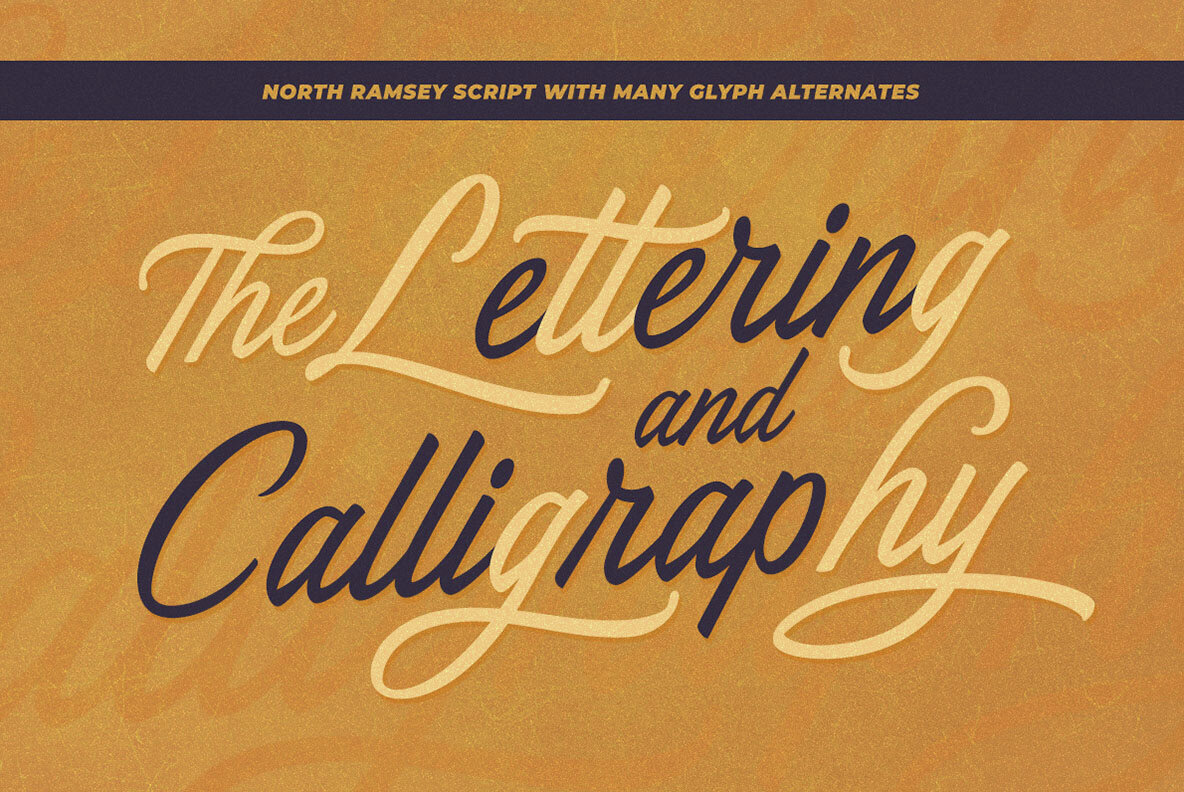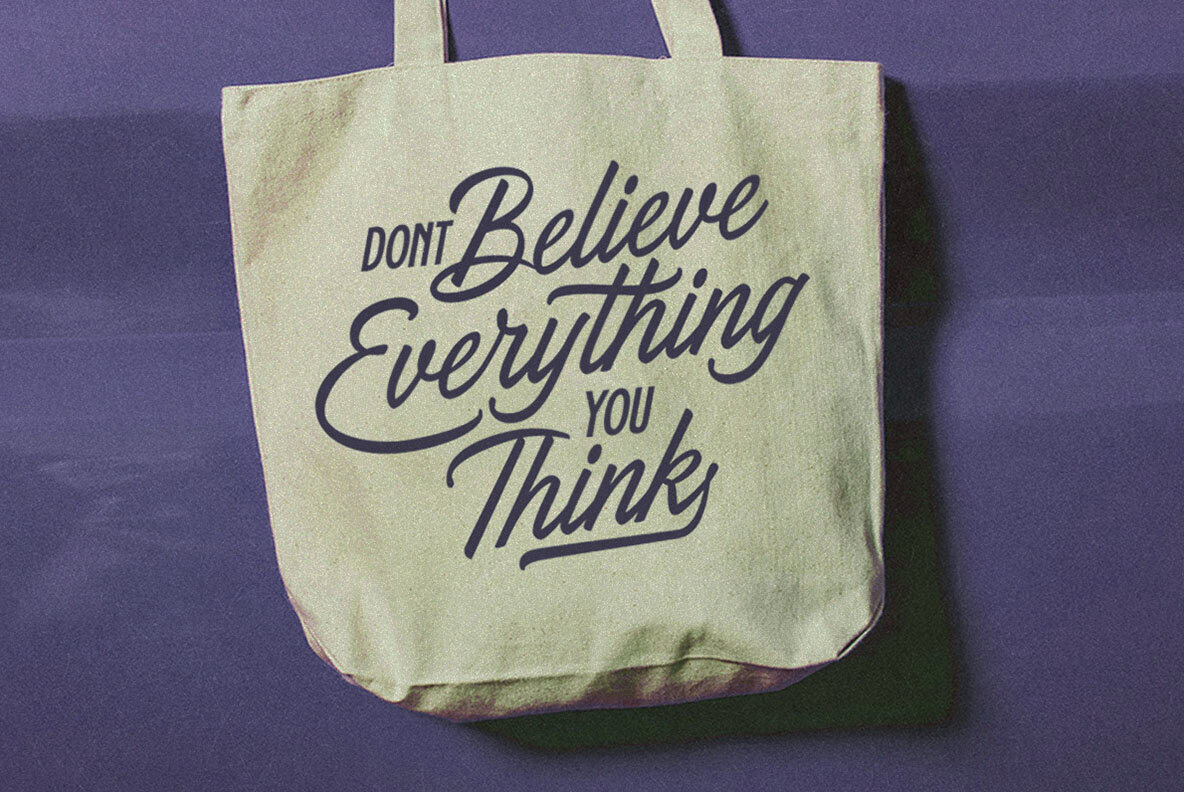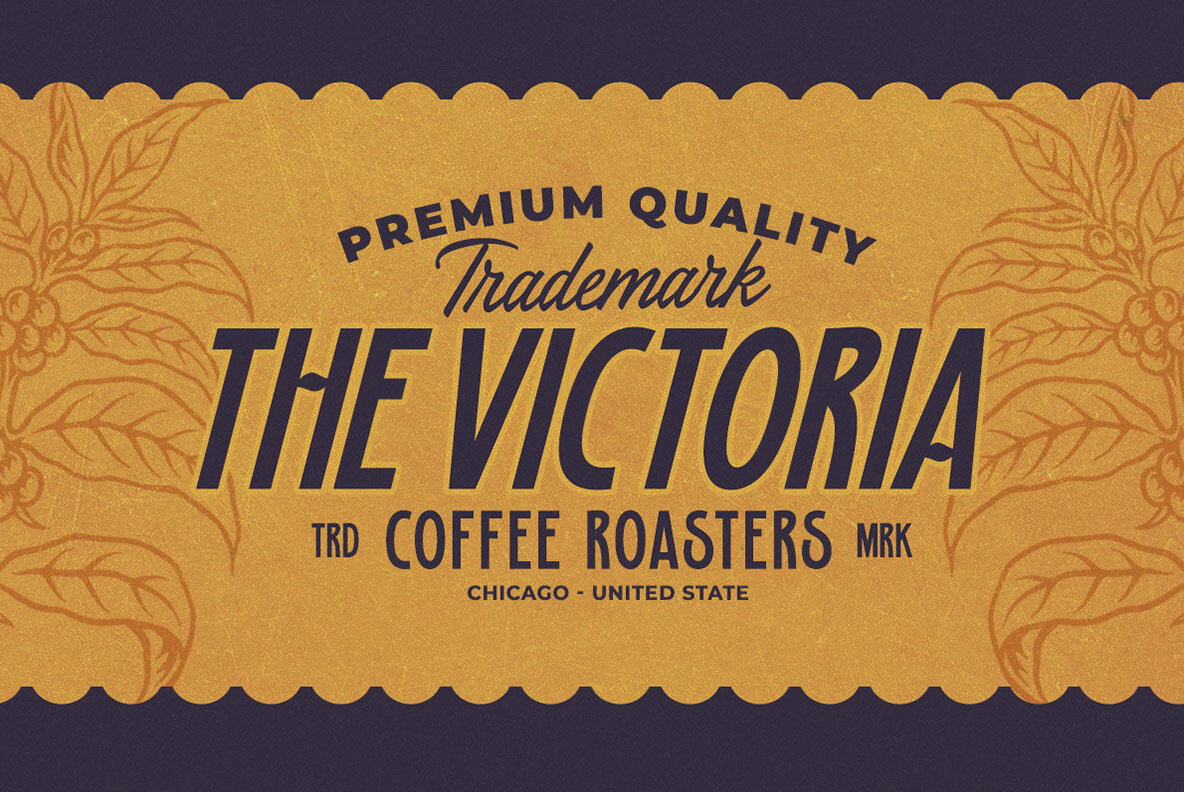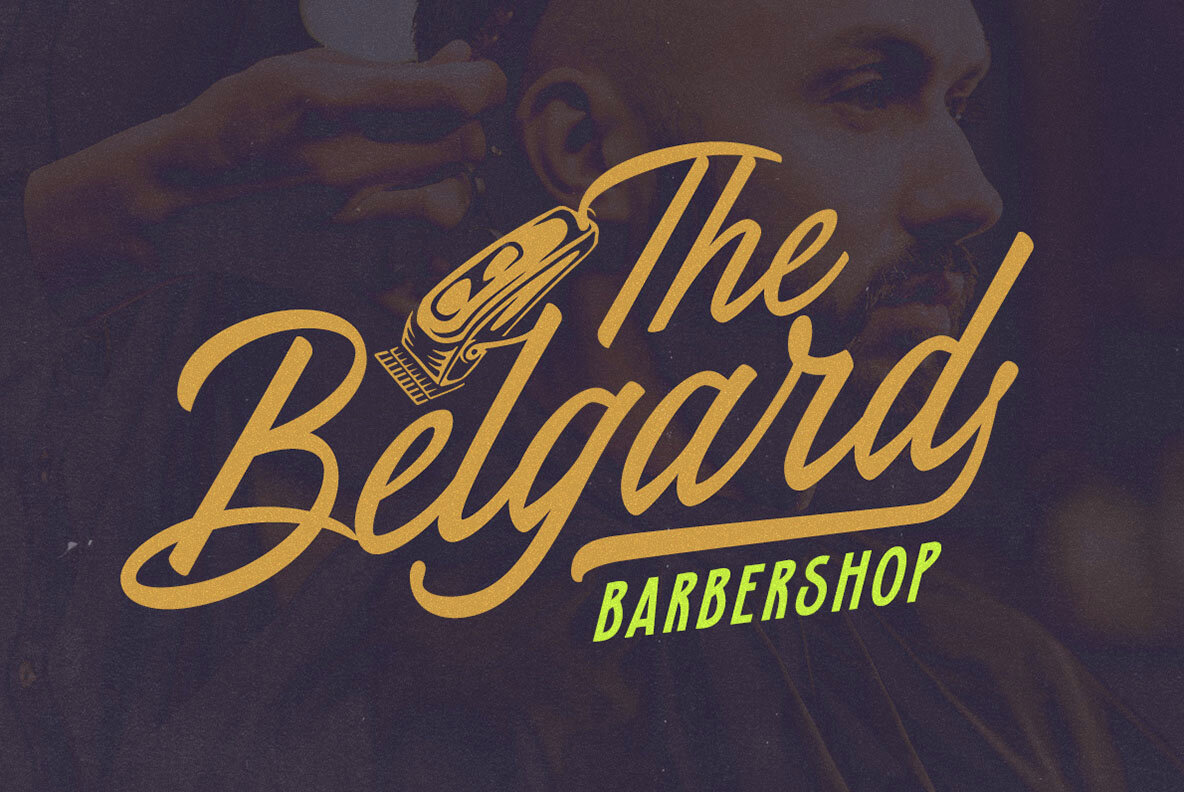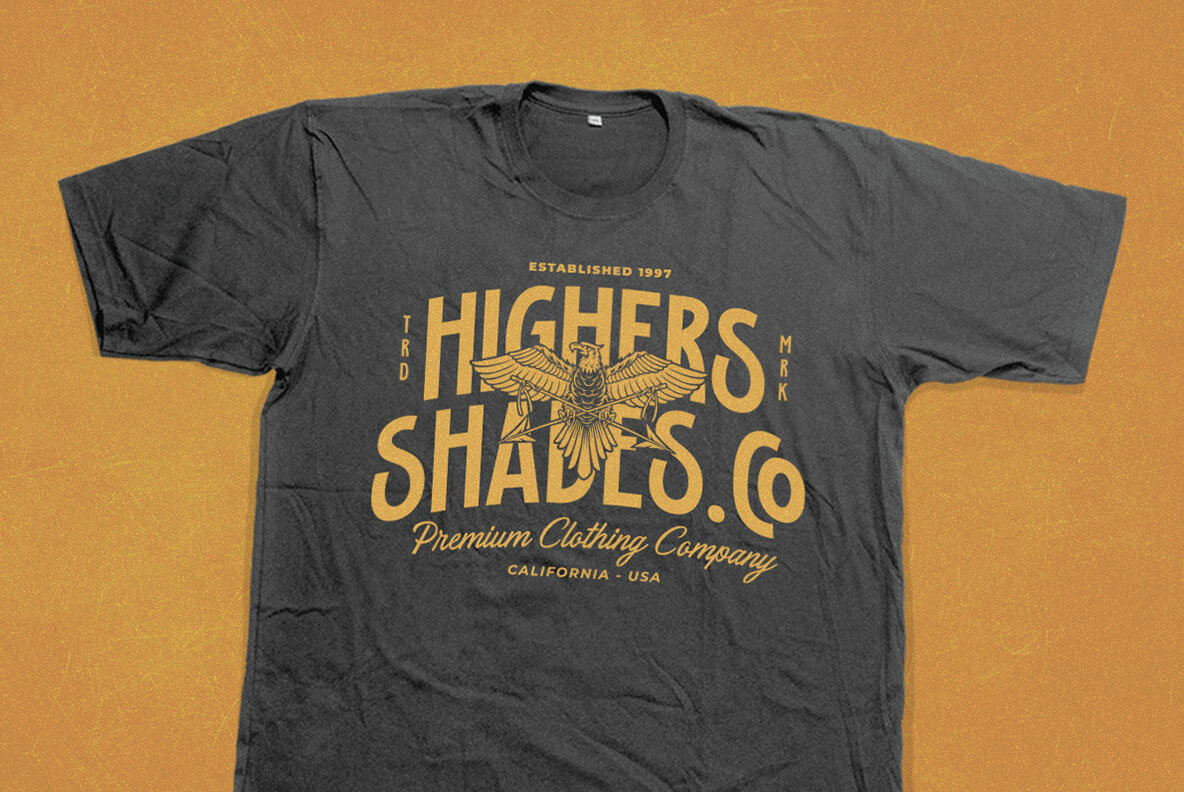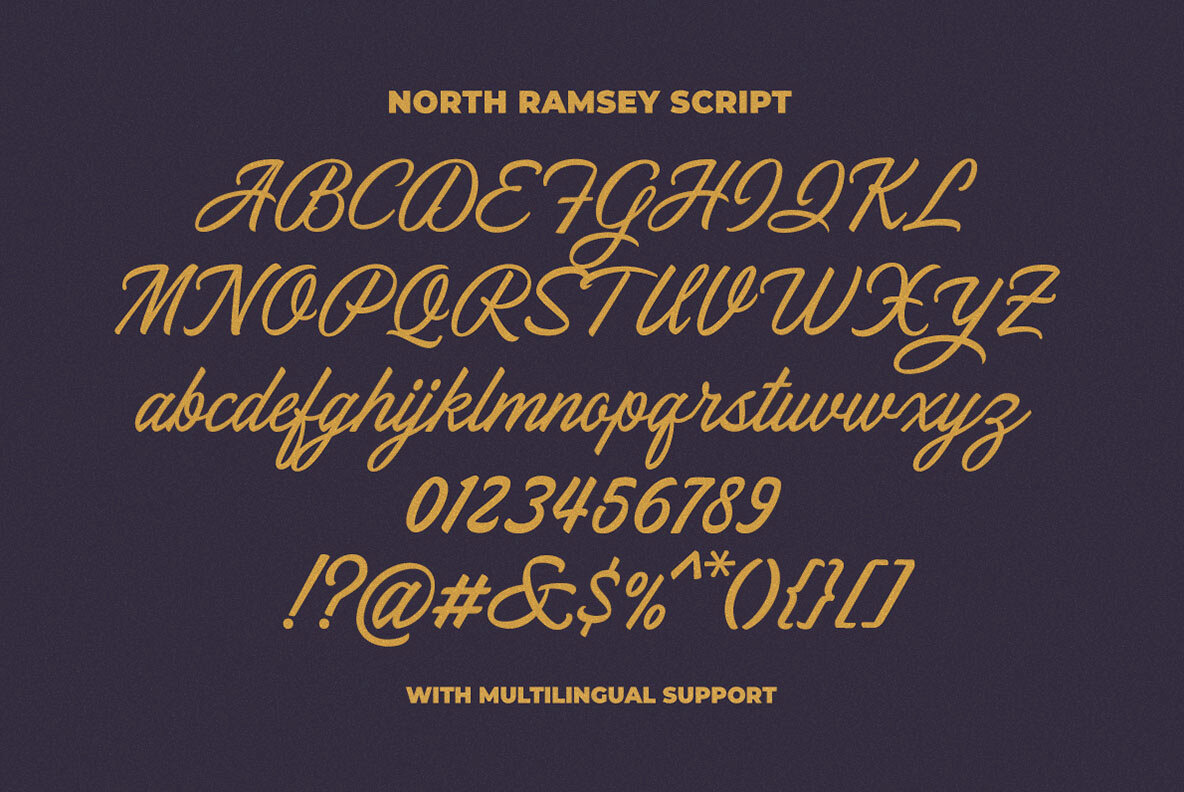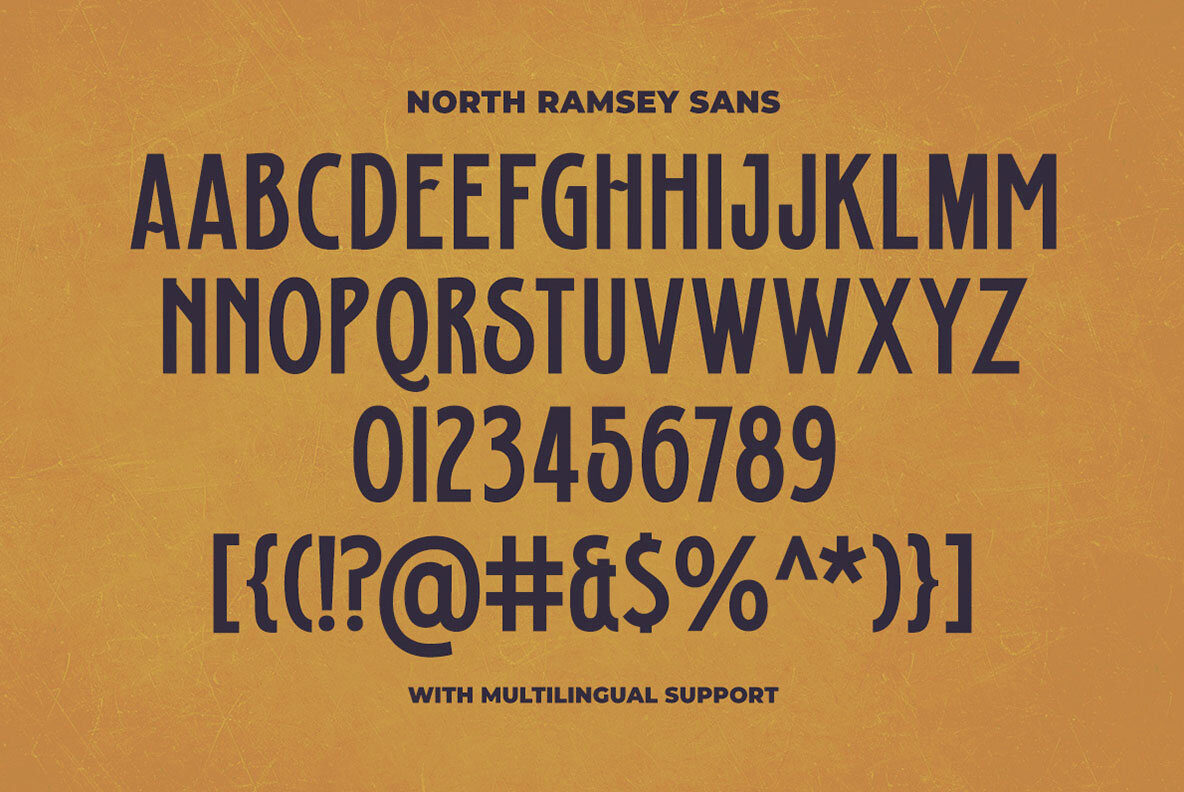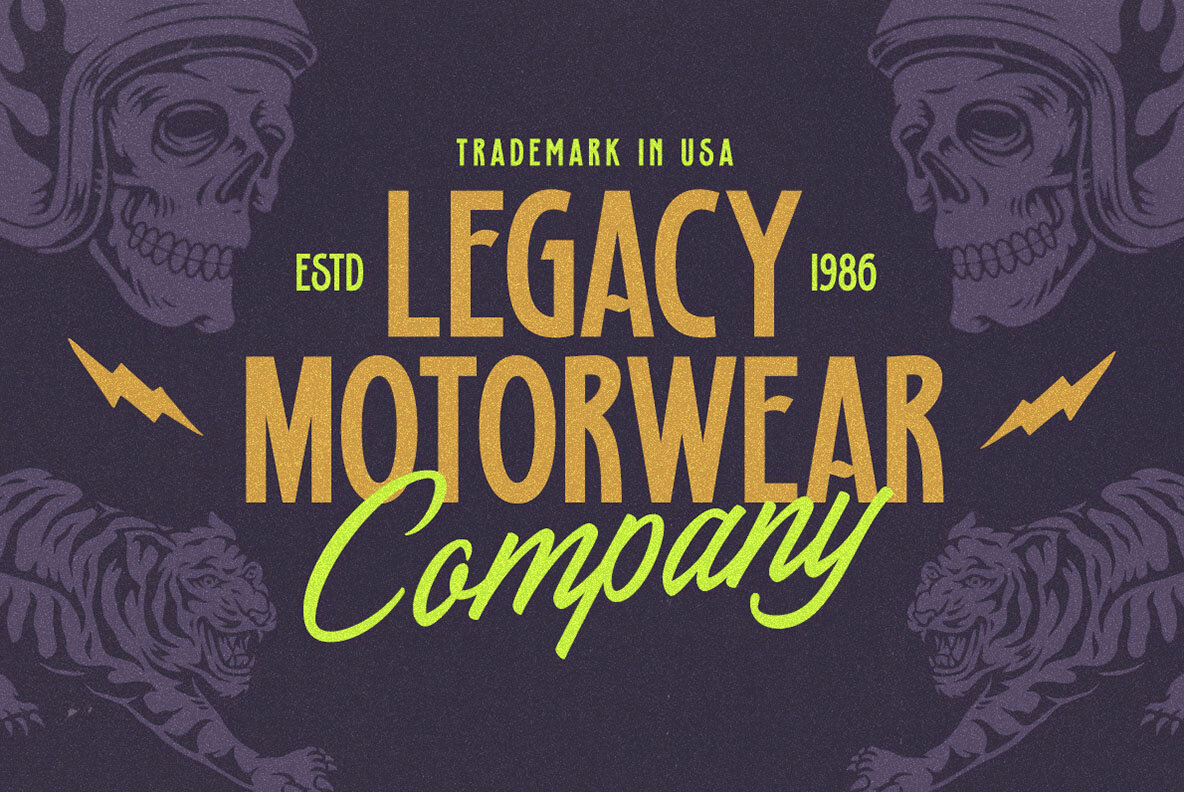
North Ramsey Font
North Ramsey Vintage Font Duo combines a sans serif with a complementary script, offering perfect harmony for your design needs. The vintage aesthetic is ideal for logotypes, apparel designs, branding, packaging, and advertising projects. With North Ramsey, you get both script and sans styles, along with regular and slant formats, ensuring versatile design options.
This font duo includes uppercase and lowercase letters, numbers, punctuation, alternates, and ligatures, all with multilingual support. An added bonus is the included illustrations, enhancing your creative toolkit. North Ramsey is PUA encoded, enabling easy access to all glyph variations. For the best experience, use software that supports OpenType features and Glyphs panels, such as Adobe applications and Corel Draw, to fully utilize the font's capabilities.